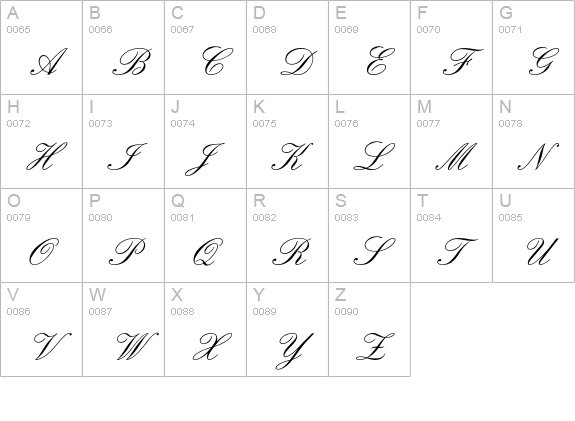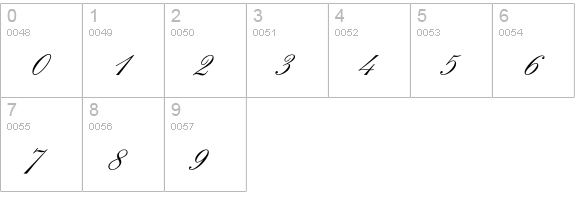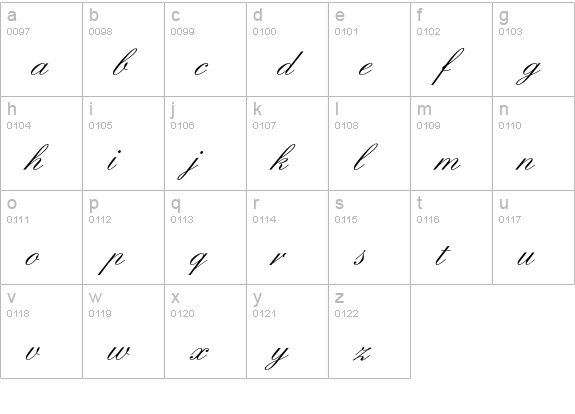
EnglishScriptEF-Regular Font Details
EnglishScriptEF-Regular is the standard, neutral variant in the EnglishScriptEF typeface family \xE2\x80\x94 well suited to general body text, paragraphs, and standard typographic work.
EnglishScriptEF-Regular is a timeless and elegant font that exudes sophistication and charm. With its graceful curves and flowing strokes, this font is perfect for adding a touch of elegance to any design project. Whether you're creating wedding invitations, branding materials, or social media graphics, EnglishScriptEF-Regular will elevate your designs and give them a touch of class. The best part is that EnglishScriptEF-Regular is completely free to download at FontsMarket.com. This means you can start using this beautiful font in your projects right away without having to spend a dime. Don't miss out on the opportunity to add this stunning font to your collection and take your designs to the next level. Download EnglishScriptEF-Regular today and let your creativity shine.